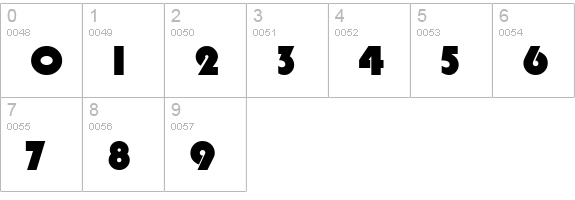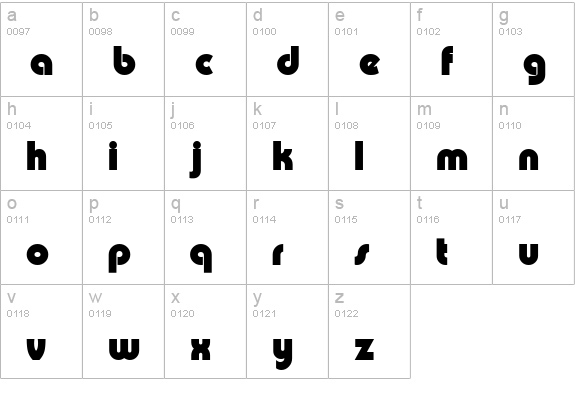
Pump Rus Font Details
Pump Rus font is a modern and stylish typeface that exudes confidence and sophistication. Its bold and robust design makes it perfect for creating eye-catching headlines, logos, and branding materials. The sharp edges and clean lines give Pump Rus a contemporary feel, while still maintaining a sense of timelessness. What sets Pump Rus font apart is that it is not only visually striking but also versatile. Whether you're designing a poster, website, or packaging, this font will make your text stand out and leave a lasting impression on your audience. The best part? Pump Rus font is completely free and available for download at FontsMarket.com. So go ahead and elevate your designs with this stunning typeface without any cost involved. Download Pump Rus font today and take your projects to the next level of style and sophistication.